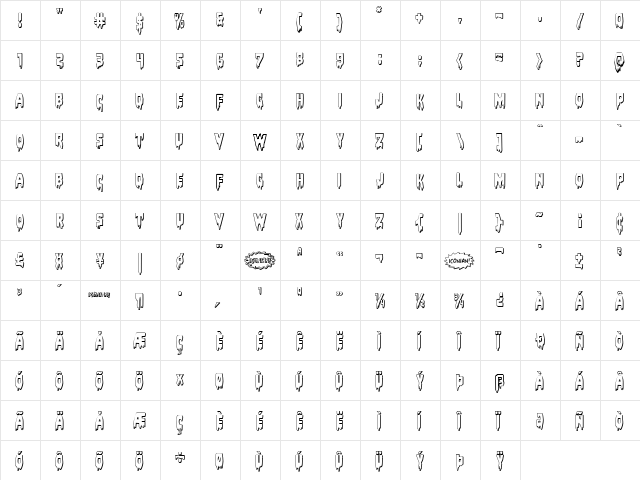
Bloodlust 3D Regular
Design Context for Bloodlust 3D Typeface
Bloodlust 3D carries an unsettling edge — its distorted letterforms are built to unsettle, perfectly suited to horror, Halloween, and dark creative work.
Ideal for Halloween projects, horror film titles, haunted house signage, and dark editorial design.
Font Pairing: Pair with a clean neutral sans-serif for body copy to let Bloodlust 3D's character lead without overwhelming the composition.
Pro Tip: Bloodlust 3D works best as a headline or focal element. Pair it against plain, neutral body text to amplify the contrast.